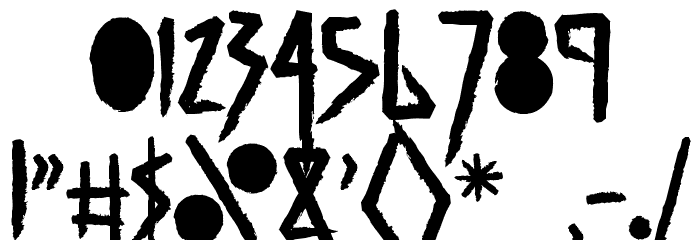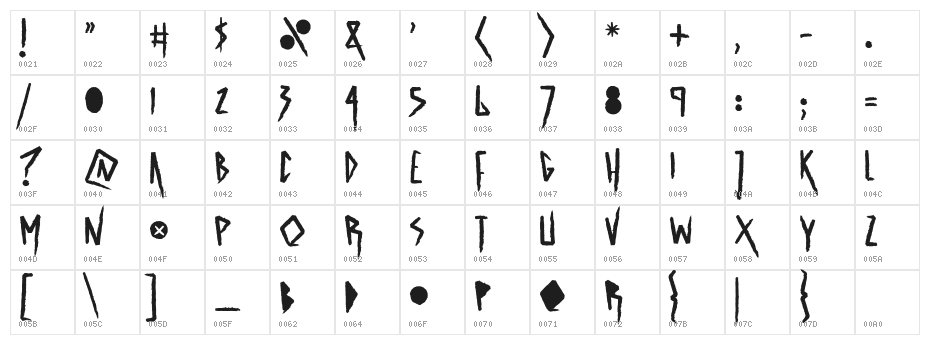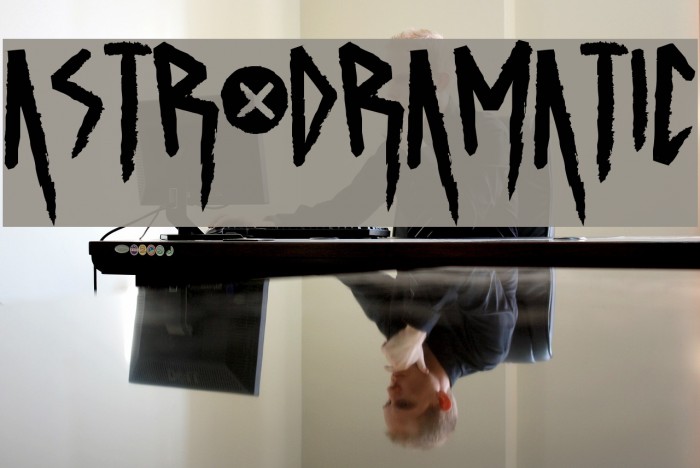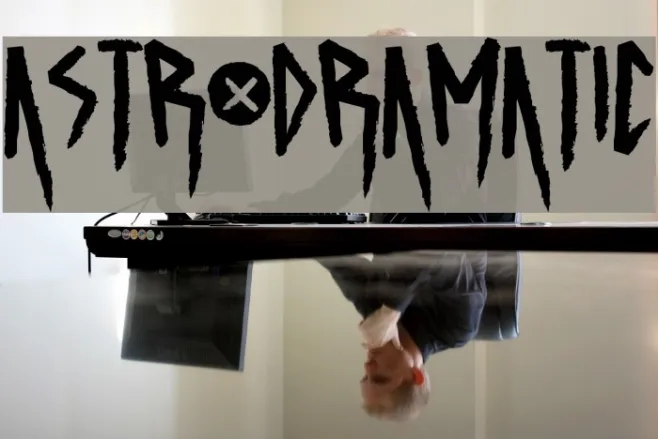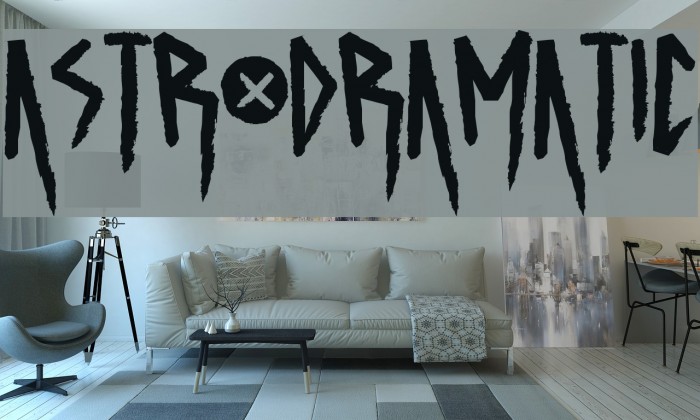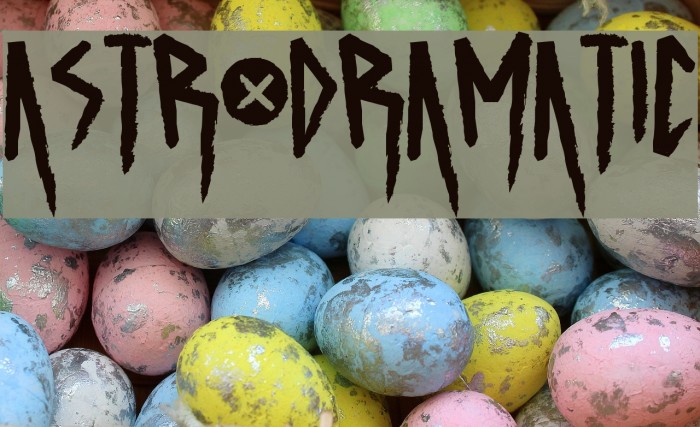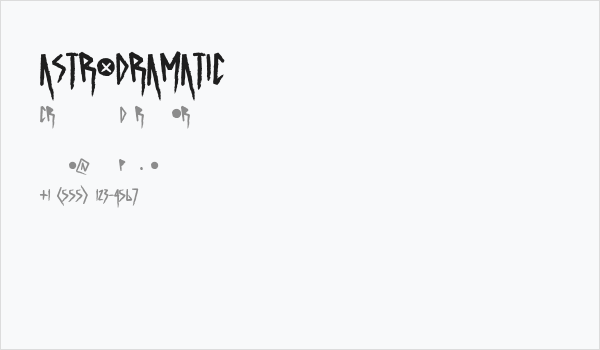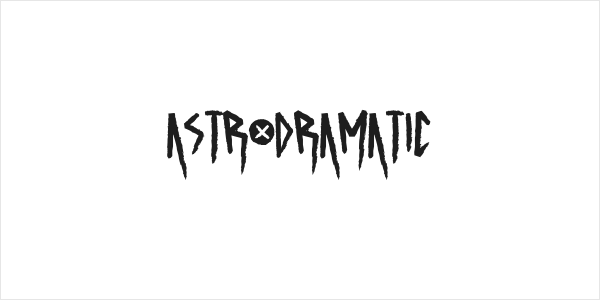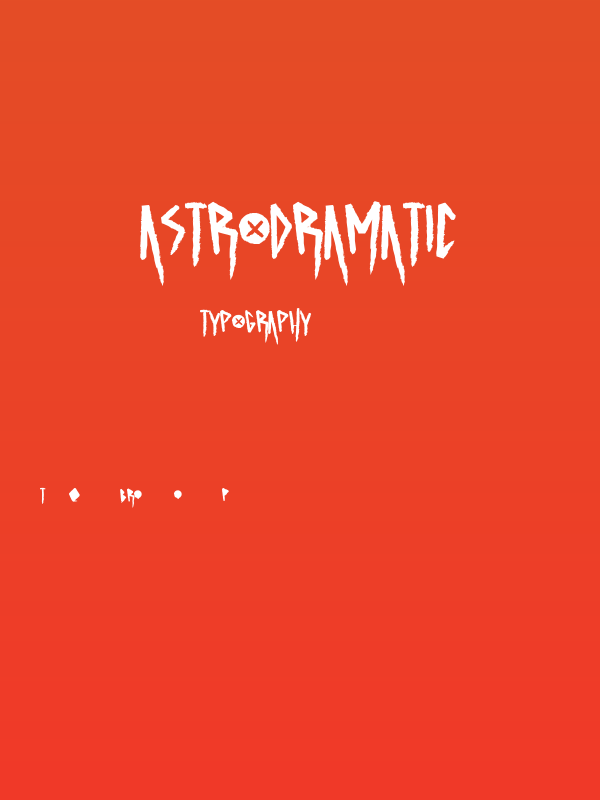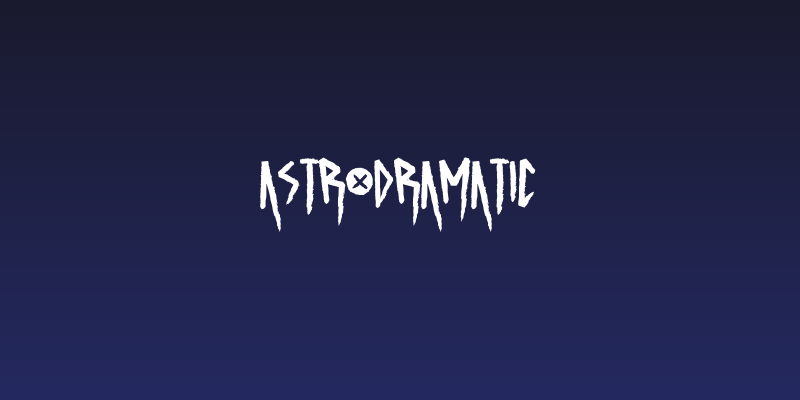
ASTRODRAMATIC Font
ASTRODRAMATIC Description
This font features a bold and dramatic style with sharp, jagged edges and an irregular form that gives it a hand-drawn appearance. The uppercase letters are tall and narrow, with exaggerated angles and points that create a sense of movement and energy. The lowercase letters maintain this dynamic style, though they are slightly more compact. Numbers and special characters follow the same aesthetic, contributing to a cohesive and striking visual impact. The font's unique and edgy design makes it ideal for projects that require a bold statement.
| Proposed Projects | Ideal for music album covers, horror movie posters, edgy branding, or any project needing a bold, dramatic impact. |